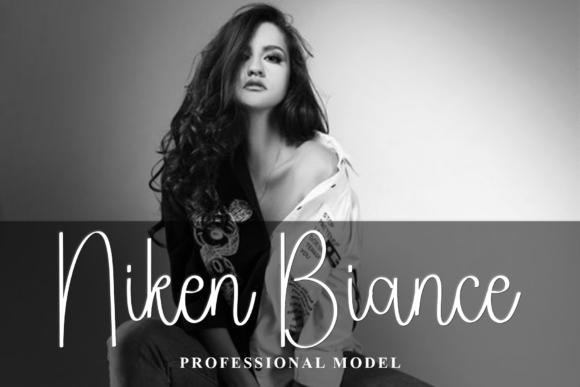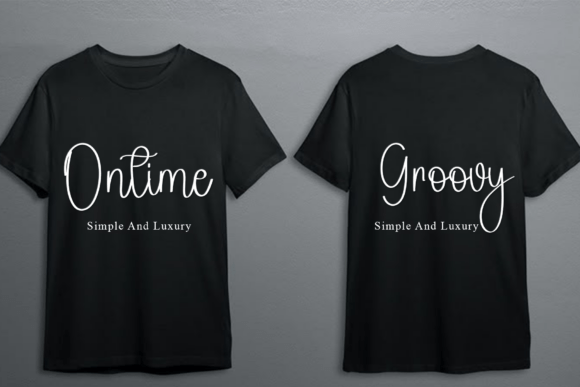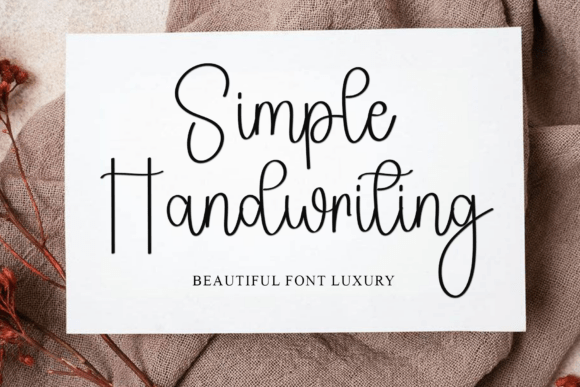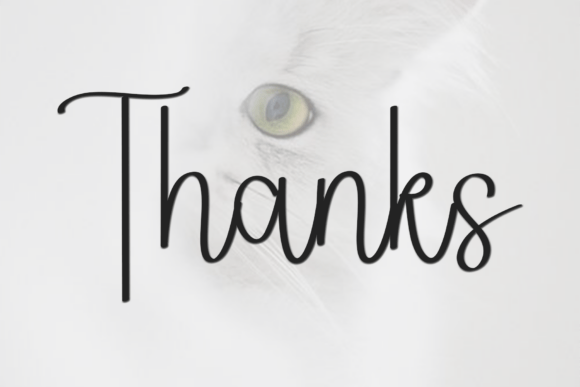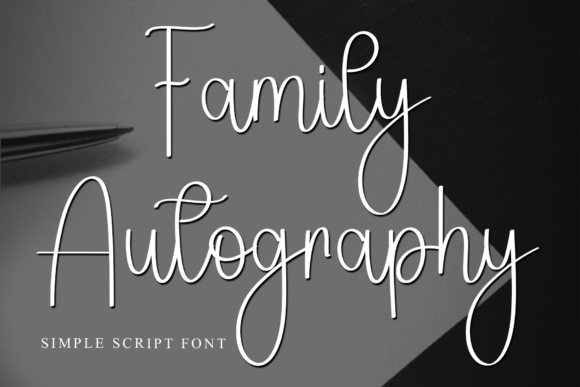
Introducing Family Autography Font: Elevate Your Designs with Elegant Handwritten Charm
Are you searching for a font that embodies the warmth and sophistication of handwritten script, perfect for both personal and professional projects? Look no further than Family Autography, a simple yet stunning handwritten script font. Defined by its tall ascenders, smooth monoline strokes, and graceful letter connections, Family Autography is designed to bring a touch of elegance and refinement to your designs.
Key Features of Family Autography Font
- Tall Ascenders and Smooth Strokes: Family Autography’s tall ascenders give the font a sense of grandeur and sophistication, while its smooth monoline strokes ensure a fluid and cohesive look.
- Graceful Letter Connections: The font’s letters are connected with a natural flow, mimicking the fluidity of neat penmanship. This feature adds to the overall elegance and readability of the font.
- Uniform Line Thickness: Family Autography preserves uniform line thickness throughout, providing clarity and balance to your designs. This makes it perfect for a wide range of applications, from invitations to branding signatures.
- Open Loops and Elegant Rhythm: The font’s open loops and elegant rhythm give it a refined handwritten charm, making it suitable for designs that require a personal touch.
Versatility and Legibility
Family Autography’s consistent proportions make it an excellent choice for various design projects. Its clean curves ensure legibility even in smaller text, while maintaining the authenticity of natural handwriting. This font is perfect for:
- Invitations: Create beautiful wedding invitations, birthday cards, or any other special occasion with a personal touch.
- Greeting Cards: Add a touch of elegance to your greeting cards, making them stand out from the rest.
- Branding Signatures: Use Family Autography to create a unique and memorable brand signature that reflects your company’s personality.
- Minimalist Logo Projects: The font’s simplicity and elegance make it perfect for minimalist logo designs that require a touch of sophistication.
Family Autography font is PUA (Private Use Area) encoded, which means you can access all the amazing glyphs and ligatures with ease. This feature allows you to:
- Access Swashes and Ligatures: Add a touch of elegance to your designs with the font’s built-in swashes and ligatures.
- Customize Your Text: With PUA encoding, you can easily access and use the font’s various glyphs to create unique and personalized text.
Why Choose Family Autography Font?
Family Autography font offers a unique combination of elegance, legibility, and versatility, making it an excellent choice for designers and crafters. Here are a few reasons why you should consider using Family Autography:
- Warm and Approachable: The font’s natural handwriting style adds a warm and approachable touch to your designs.
- Professional and Sophisticated: Family Autography’s elegant rhythm and smooth strokes make it perfect for professional designs that require a touch of sophistication.
- Easy to Read: The font’s clean curves and uniform line thickness ensure legibility even in smaller text.